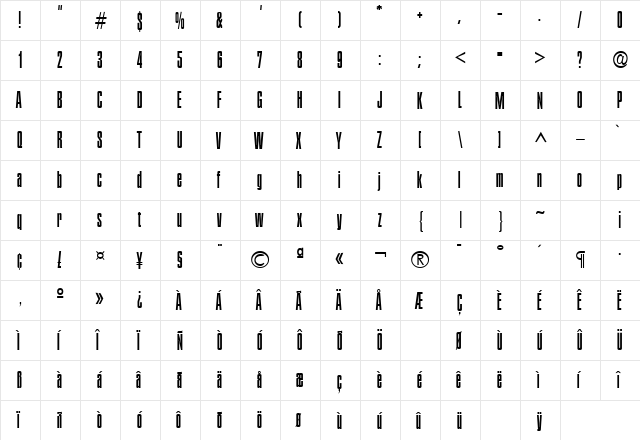
Plakette Regular
Design Context for Plakette Typeface
Plakette offers clean, dependable letterforms without strong stylistic allegiance, making it a practical choice for designers who need flexibility.
Pro Tip: Pair Plakette with a font of contrasting weight or personality to build a more expressive typographic hierarchy.